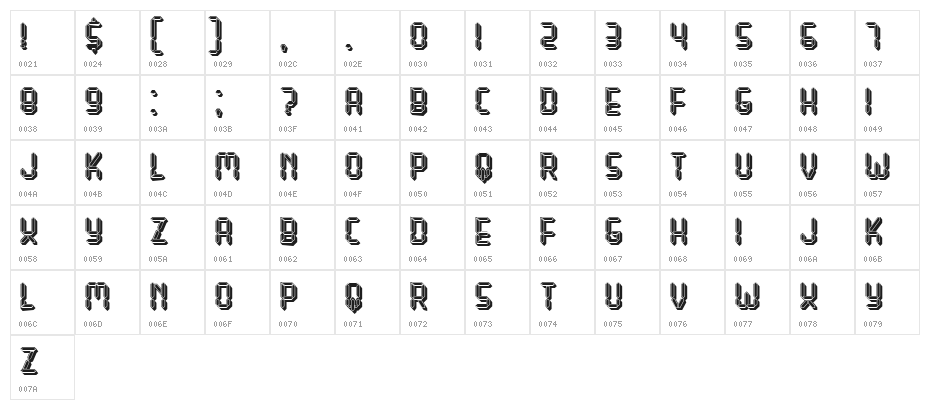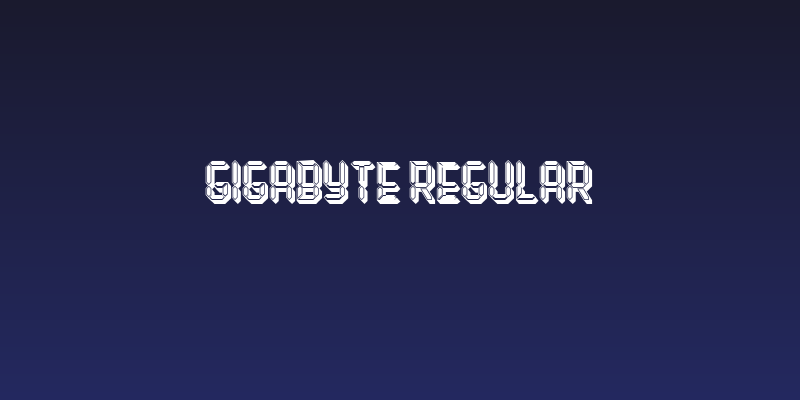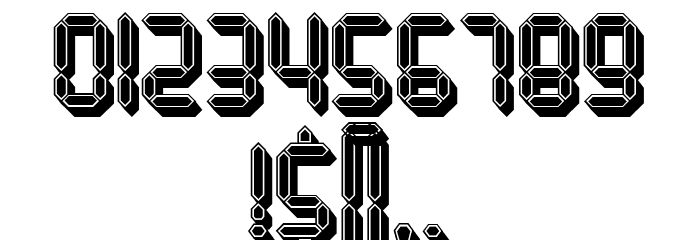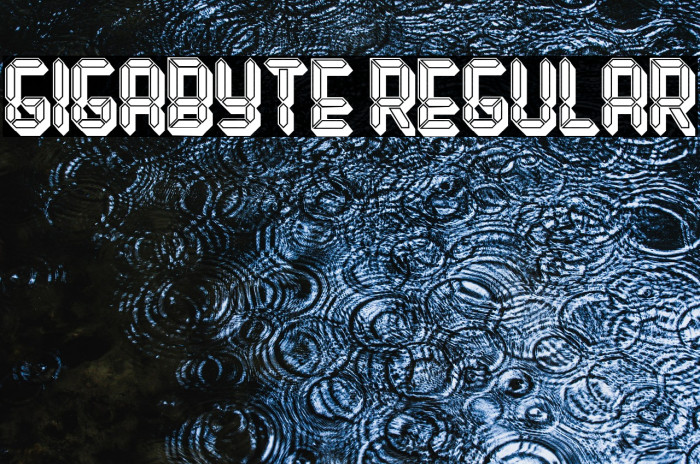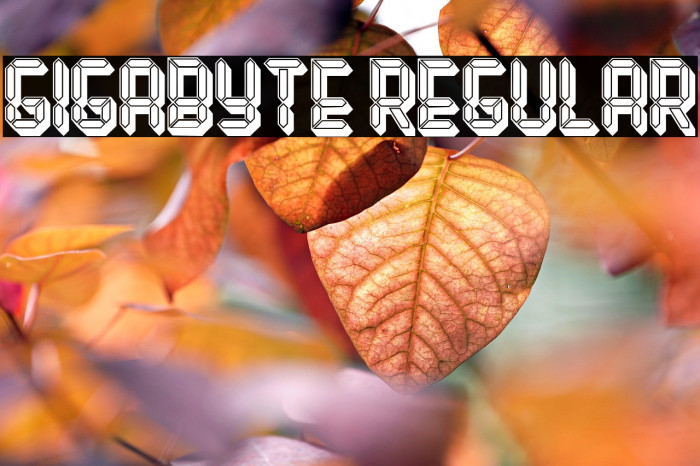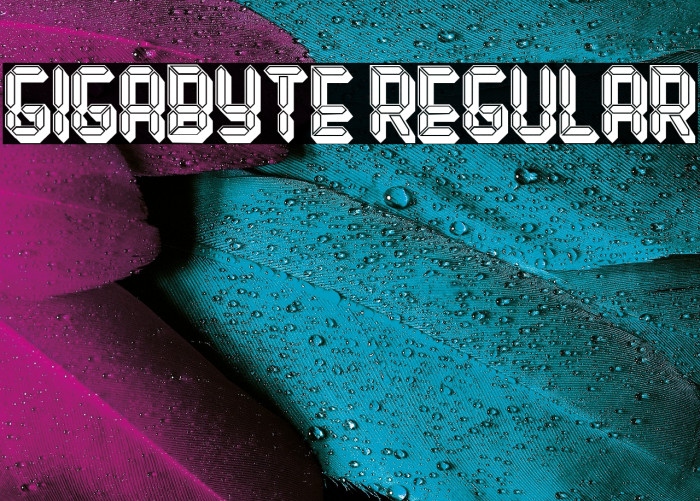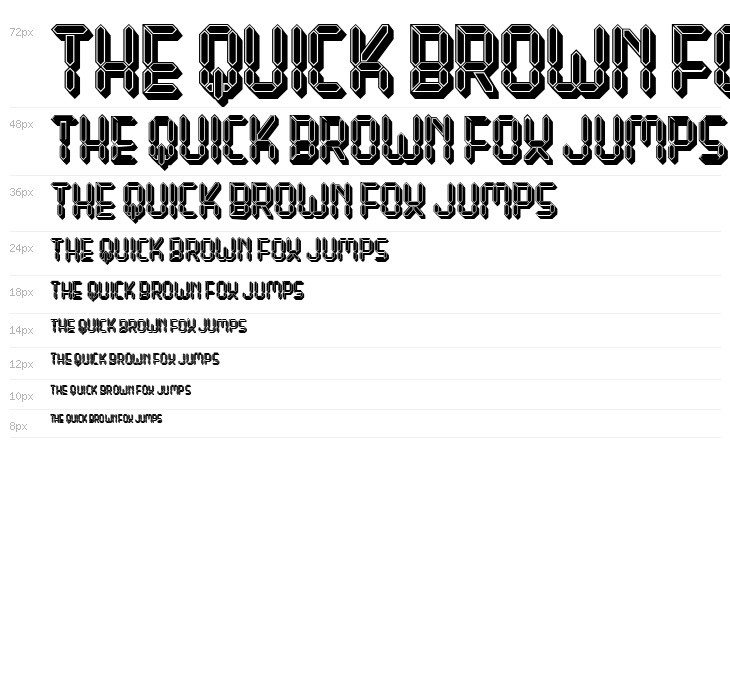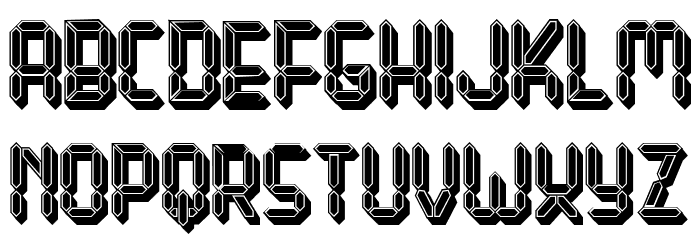
Gigabyte Regular Font
Gigabyte Regular Description
This font features a bold, futuristic design with a strong geometric influence. The characters are constructed with a series of angular, interconnected shapes that create a three-dimensional effect. Each letter and number is outlined with a thick black border, enhancing the digital and tech-inspired aesthetic. The font's unique structure makes it highly distinctive, with a consistent pattern that runs throughout the entire character set. The special characters maintain the same design principles, ensuring uniformity across all glyphs.